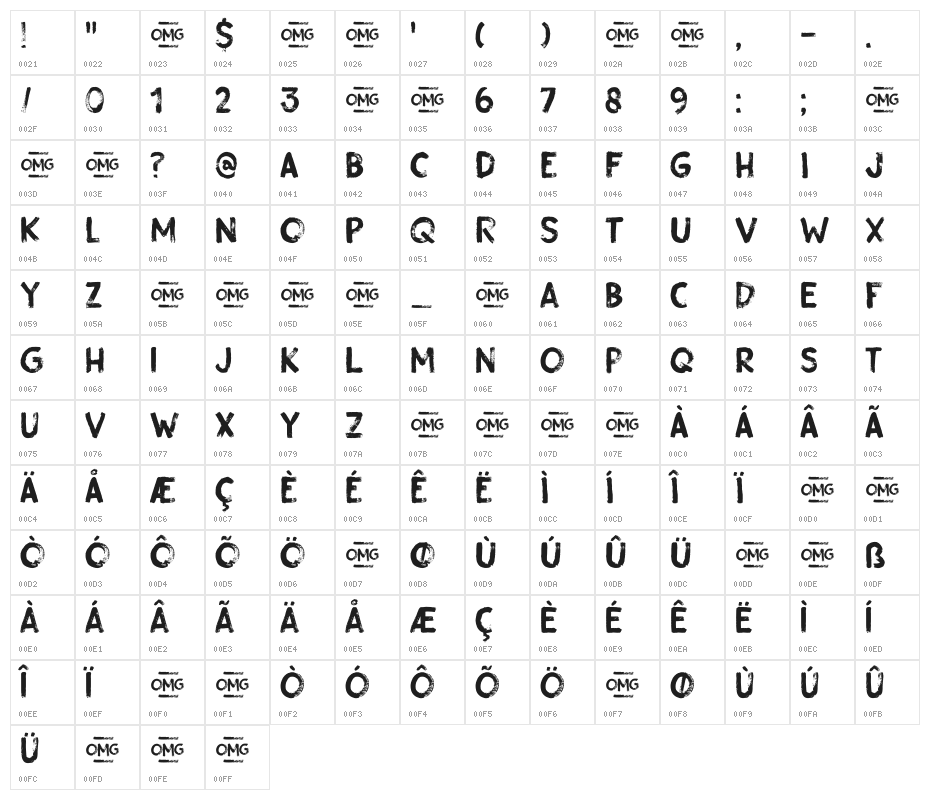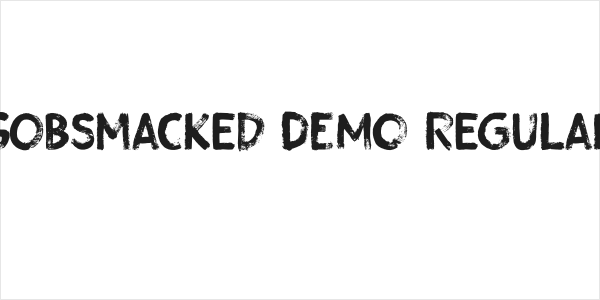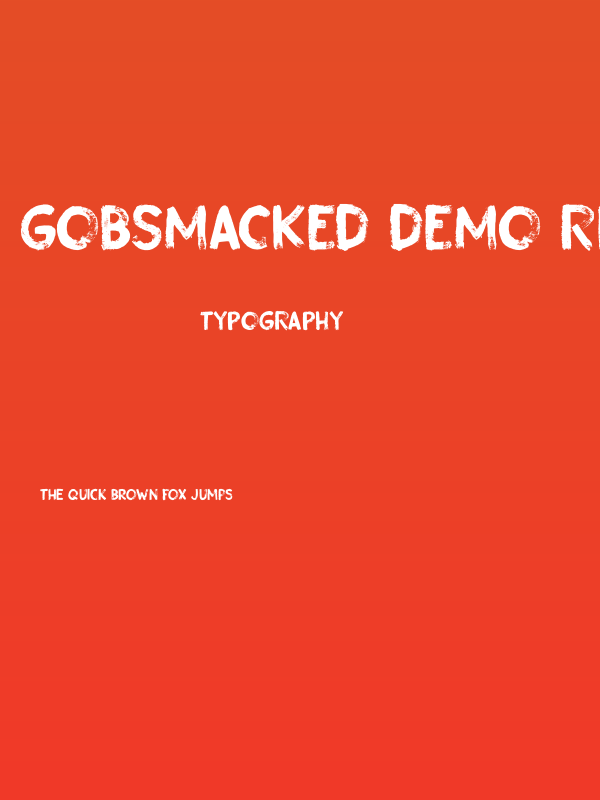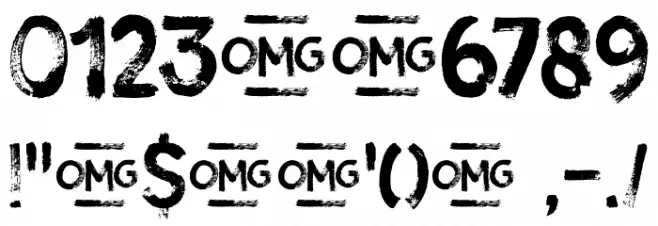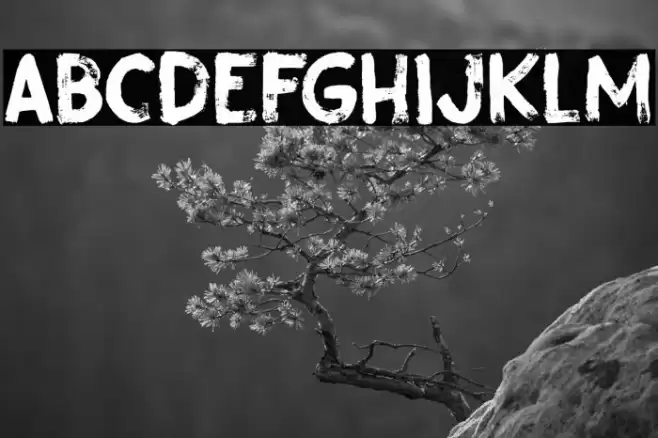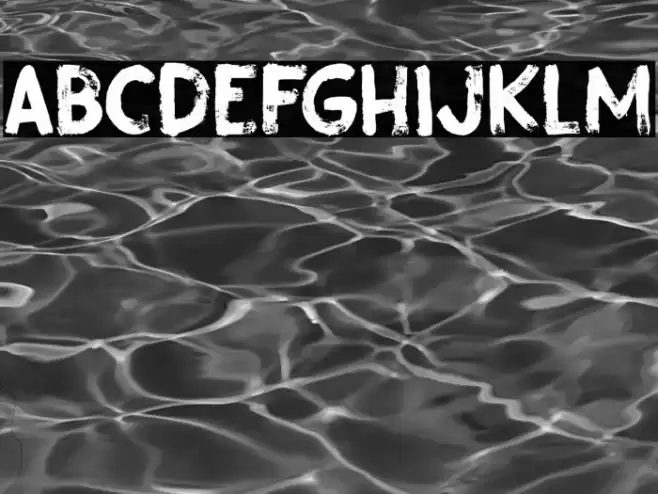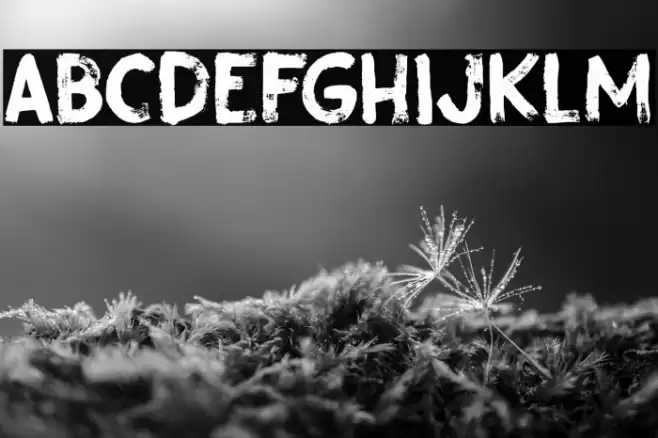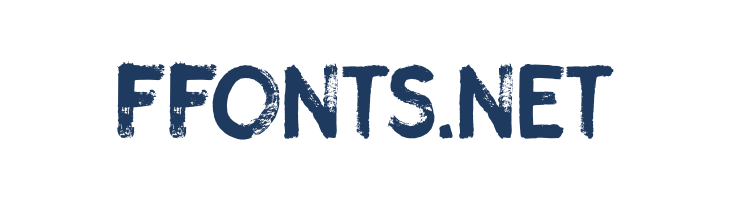
Gobsmacked DEMO Regular Font
This font features a bold and distressed style, with a rough, textured appearance that gives it a hand-painted look. The characters are thick and substantial, with irregular edges that add to its rugged charm. The uppercase letters are prominent and commanding, while the lowercase letters maintain the same boldness and texture. Numbers and special characters are equally bold, ensuring consistency across all text elements. This font's unique style makes it ideal for projects that require a strong visual impact.
| Proposed Projects | Ideal for posters, album covers, branding materials, and any design needing a bold, artistic touch. |